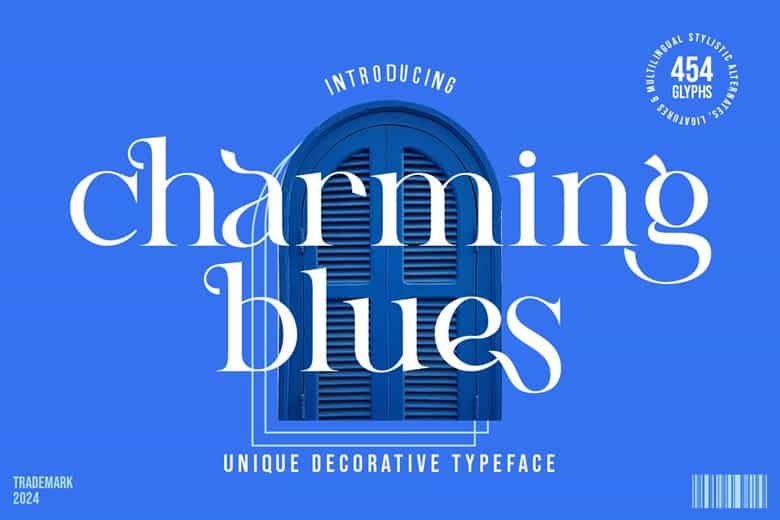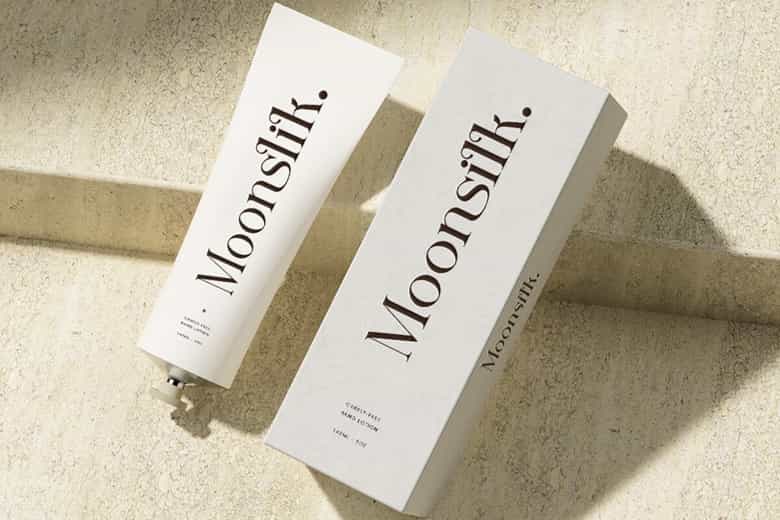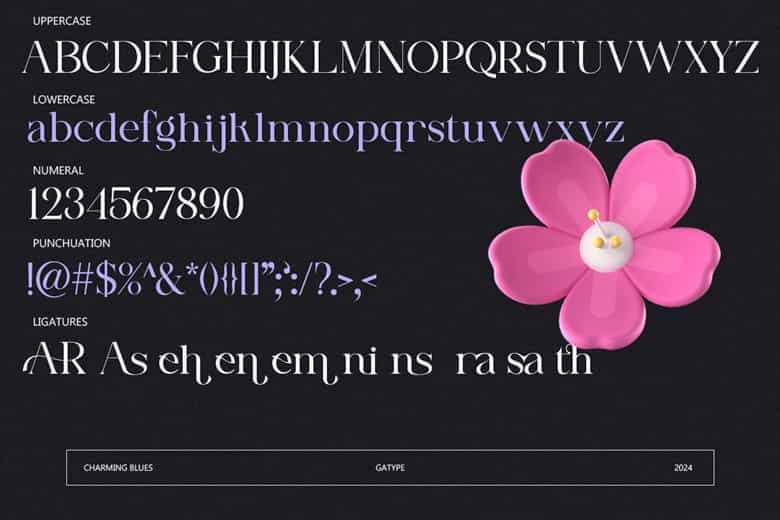
Charming Blues is an unique decorative serif font. I wish this font was more handmade because some of the curves are synthesized but it has high contrast glyphs which makes it look slightly feminine.